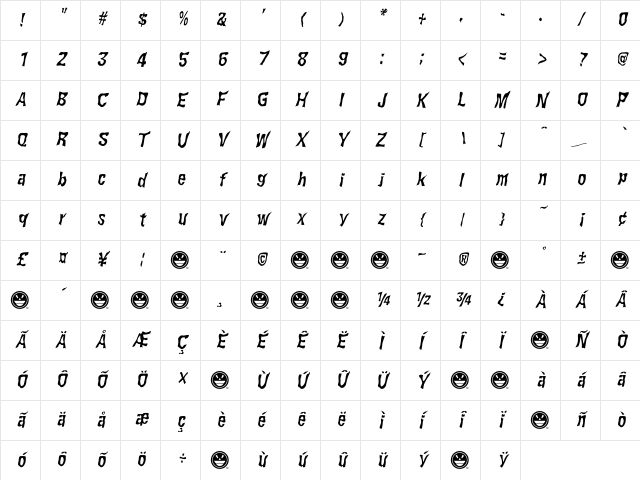
WILD2 Ghixm Normal Italic
Design Context for WILD2 Ghixm
WILD2 Ghixm is a composed and adaptable typeface that performs quietly and consistently across a wide range of design contexts. The slanted form adds forward momentum and visual energy.
Pro Tip: Use WILD2 Ghixm for emphasis, pull quotes, and subheadings where its slanted energy can add rhythm to the layout.